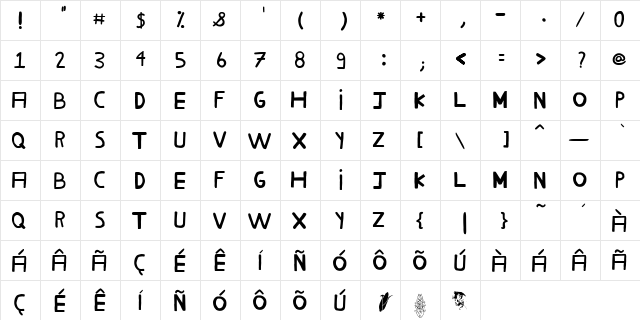
Milho Cozido Regular
| Foundry | Marcus Dejean e Andressa Ribeiro |
| Designer | Marcus Dejean e Andressa Ribeiro |
Design Context for Milho Cozido Typeface
Milho Cozido is a composed and adaptable typeface that performs quietly and consistently across a wide range of design contexts.